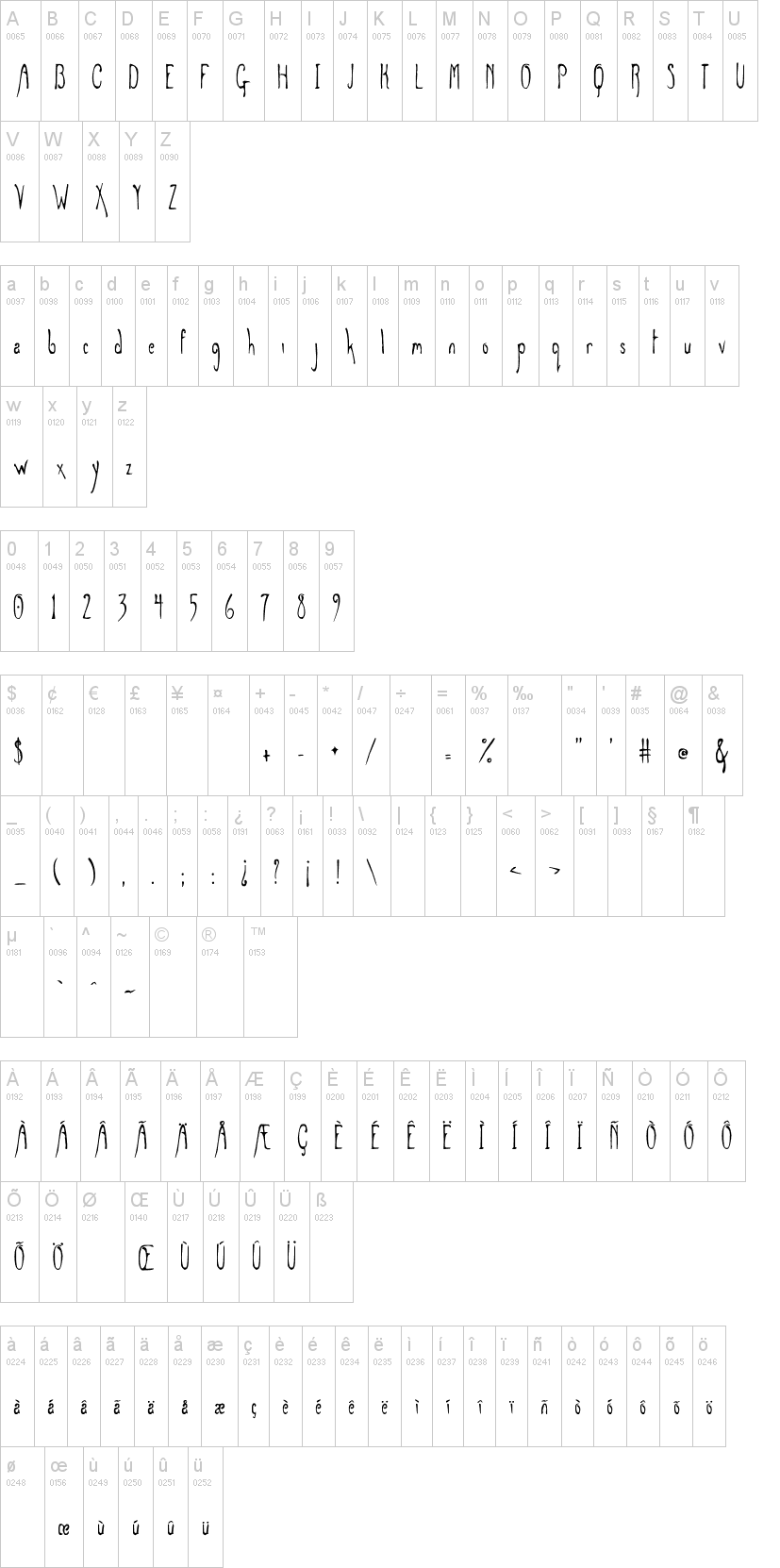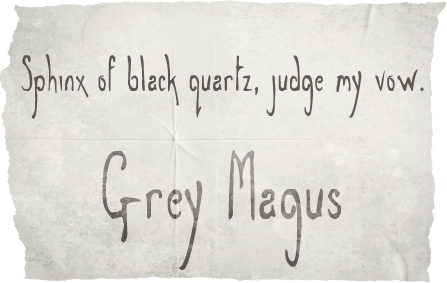
Note of the authorGrey Magus
"He had developed a curious handwriting style, with tall, upright letters crammed in tight against each other."
A font based on the handwriting of a character in one of my stories. It came out a little more art-nouveau-esque than I'd imagined, but I like it too much to quibble. I hope you like it too.
Final Version: Most accented characters included. I won't be adding any more (who knew this would be so time-consuming!) unless I get a lot of requests for certain characters.